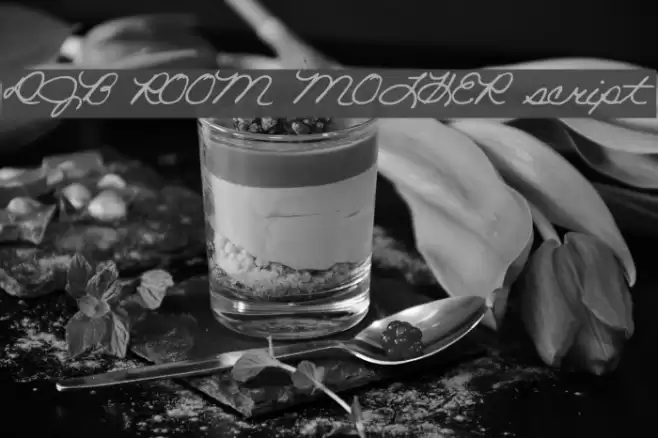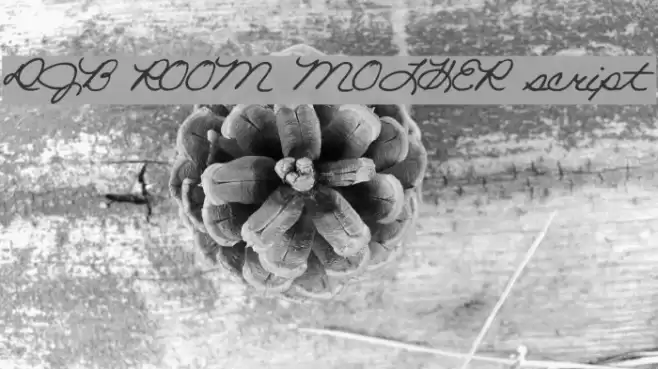
DJB ROOM MOTHER script Font
DJB ROOM MOTHER script Description
This font features a flowing, cursive style that mimics natural handwriting with a playful and informal touch. The letters are interconnected, creating a smooth and continuous line that enhances readability while maintaining an artistic flair. The uppercase letters are slightly larger and more elaborate, adding a touch of elegance, while the lowercase letters are more compact and rounded. The numerals and special characters are designed to match the overall script style, ensuring consistency throughout. This font is ideal for projects that require a personal, handwritten feel, such as invitations, greeting cards, and personal branding materials.
A playful, cursive script font with a natural, handwritten style from Uncategorized fonts.
- Proposed Projects: Ideal for invitations, greeting cards, personal branding, and creative projects.
- Character Spacing: Tight